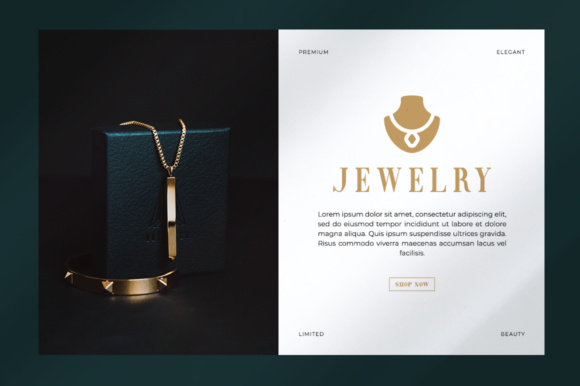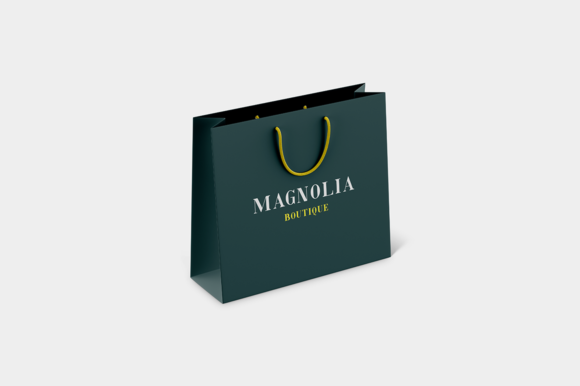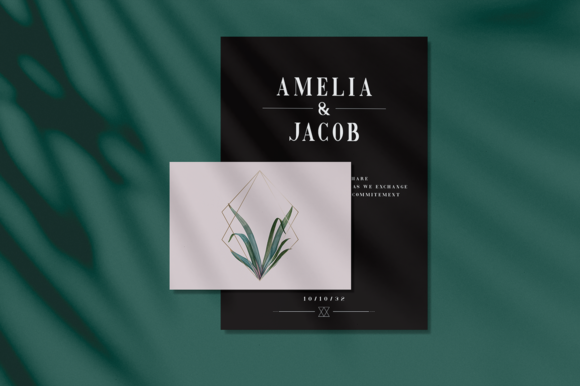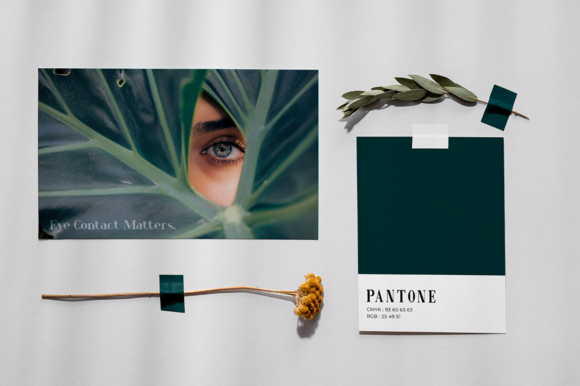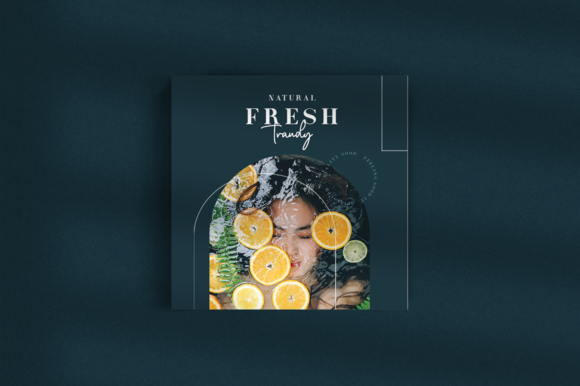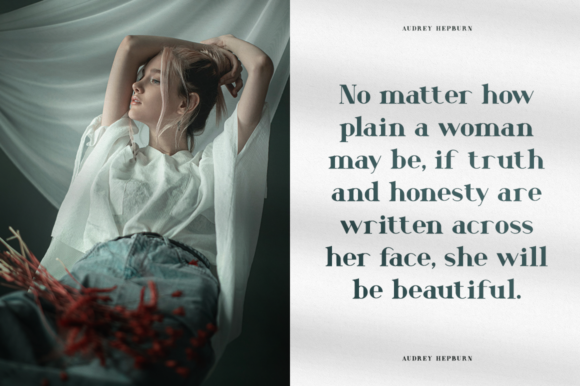
The Designer’s Delight: Uncovering the Elegance of Emerald Font
I’ll never forget the time I was working on a fashion magazine project, and my client asked me to create a cover that exuded luxury and sophistication. I spent hours scouring font libraries, but nothing seemed quite right. That was until I stumbled upon Emerald Font. Its distinct, elegant serifs and modern vibe instantly captured the essence of high-end fashion. I knew right then and there that Emerald was the perfect fit for my project.
What I Love About Emerald Font
- ✨ Distinct and elegant serif design that adds a touch of luxury to any project
- 💡 Perfect for a wide range of applications, from fashion and magazines to cooking websites and social media posts
- 🎨 Highly versatile, with plenty of opportunities for creative experimentation
While Emerald Font is an excellent choice for many projects, there are a few things to keep in mind. For example, ⚠️ some users may find the font’s serifs a bit too ornate for certain applications. Additionally, 🤔 those without experience with OpenType features may need to spend some time learning how to access and use the font’s various glyphs and swashes.
The Story Behind Emerald Font
Emerald Font was designed by a team of typographers who wanted to create a font that would capture the essence of luxury and sophistication. Inspired by the elegance of nature and the beauty of high-end fashion, they crafted a font that is both modern and timeless. With its distinct serifs and flowing lines, Emerald Font is the perfect choice for designers who want to add a touch of glamour to their projects.
| Font Name | Emerald Font |
| Author | RockboyStudio |
Q: What is PUA encoding, and how does it benefit font users?
A: PUA (Private Use Area) encoding allows font users to access a wide range of glyphs and swashes, making it easier to create unique and creative designs.
Q: Is Emerald Font suitable for body text?
A: While Emerald Font is an elegant and sophisticated font, it may not be the best choice for body text. Its serifs and flowing lines make it more suitable for headlines and titles.